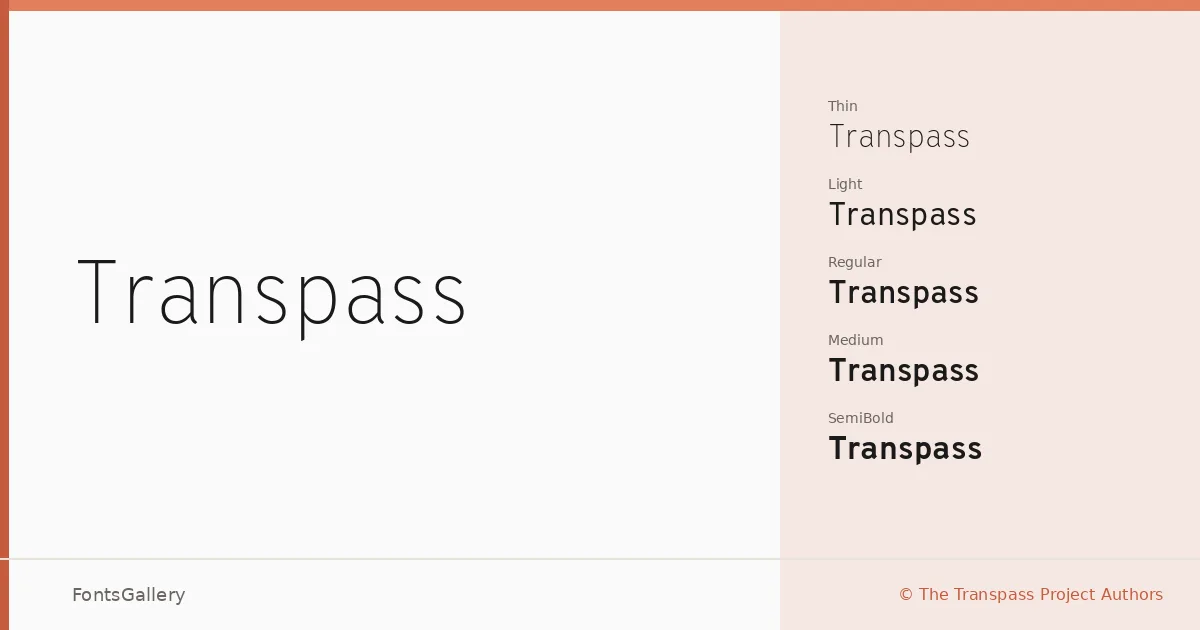
About Transpass Font
There is a clean, unhurried confidence to this sans serif — the kind of neutrality that holds its shape whether it is running across a billboard or sitting in a footnote. Designed by Delve Withrington, Dave Bailey, Thomas Jockin, and Cristiano Sobral under The Transpass Project Authors, it arrives in TTF and OTF formats and carries a range of weights that rewards careful typographic decisions. The letterforms are open and even-tempered, built for extended reading as much as for display use.
The family spans Thin through Black, with matching italics at every step, and includes variable font files for both the regular and italic axes — giving layout work a great deal of fine-grained control over weight. The overall mood sits somewhere between minimal and professional: geometric enough to feel modern, but with proportions that stay readable under pressure. Nothing in the design pulls attention to itself, which is exactly what the work sometimes needs.
It earns its keep in branding systems, presentation decks, magazine layouts, website headers, and business card design — contexts where consistency across weights matters and the tone needs to stay measured. Language coverage extends across Latin, Latin Extended (partial), Vietnamese, Cyrillic, and Greek, which makes it a practical choice when a project crosses scripts. It pairs well with the contrast-rich serif Canela, the script warmth of Armelie, the blunt energy of 321 Impact, the display personality of AQUA, or the geometric edge of Kactigona.